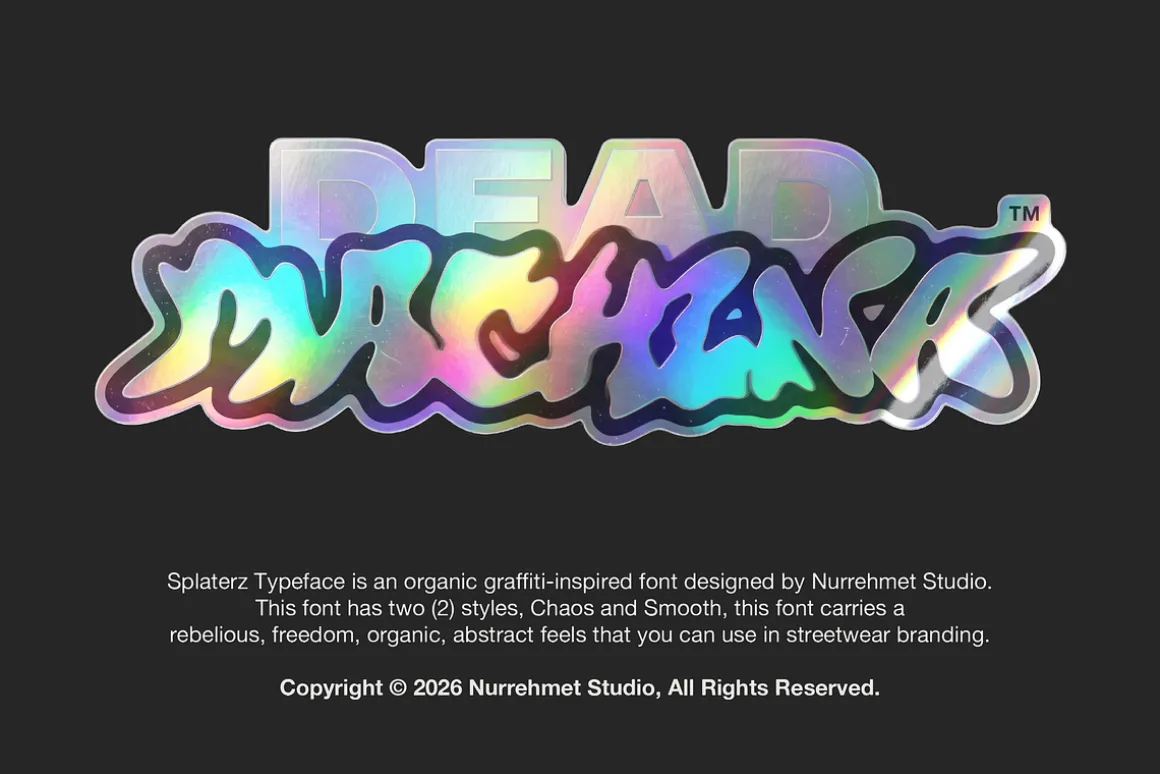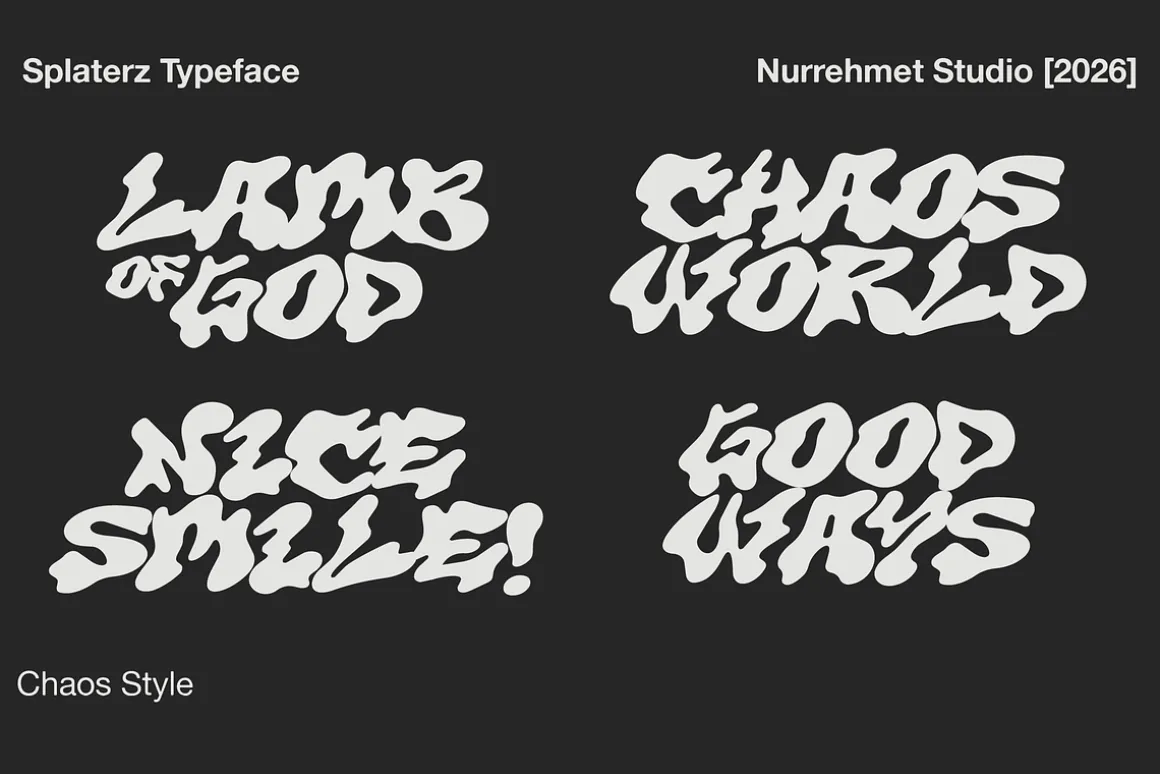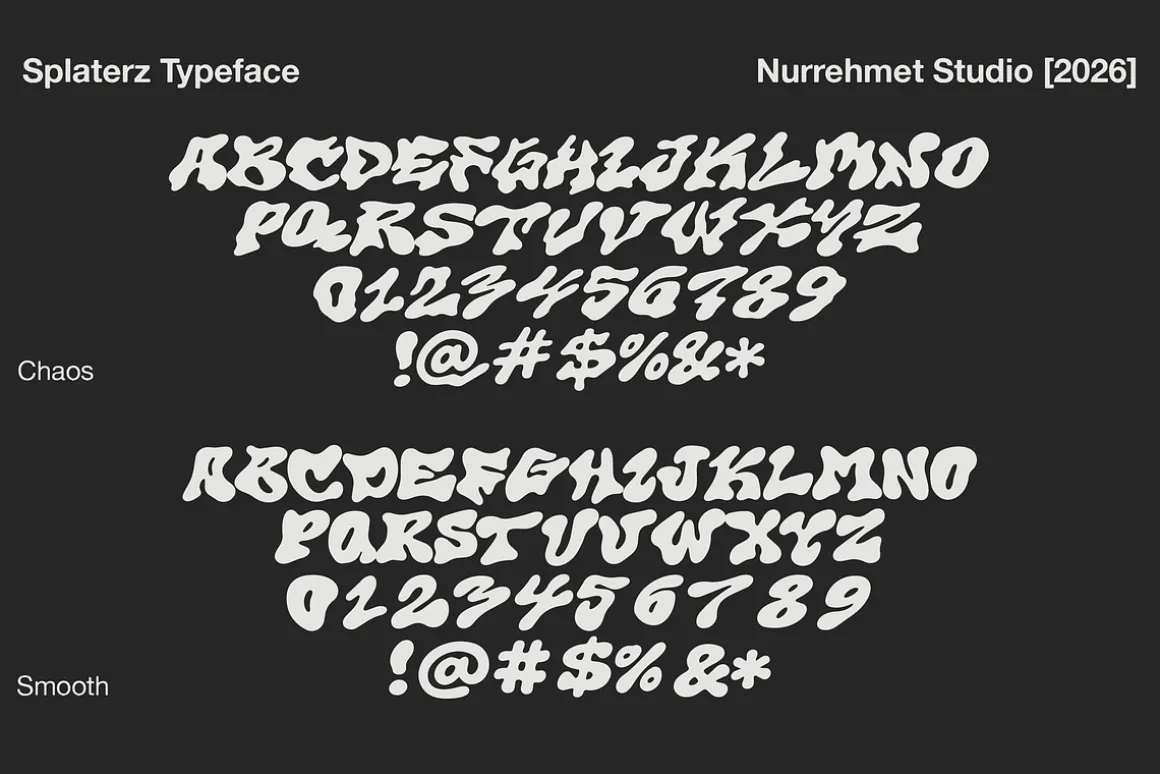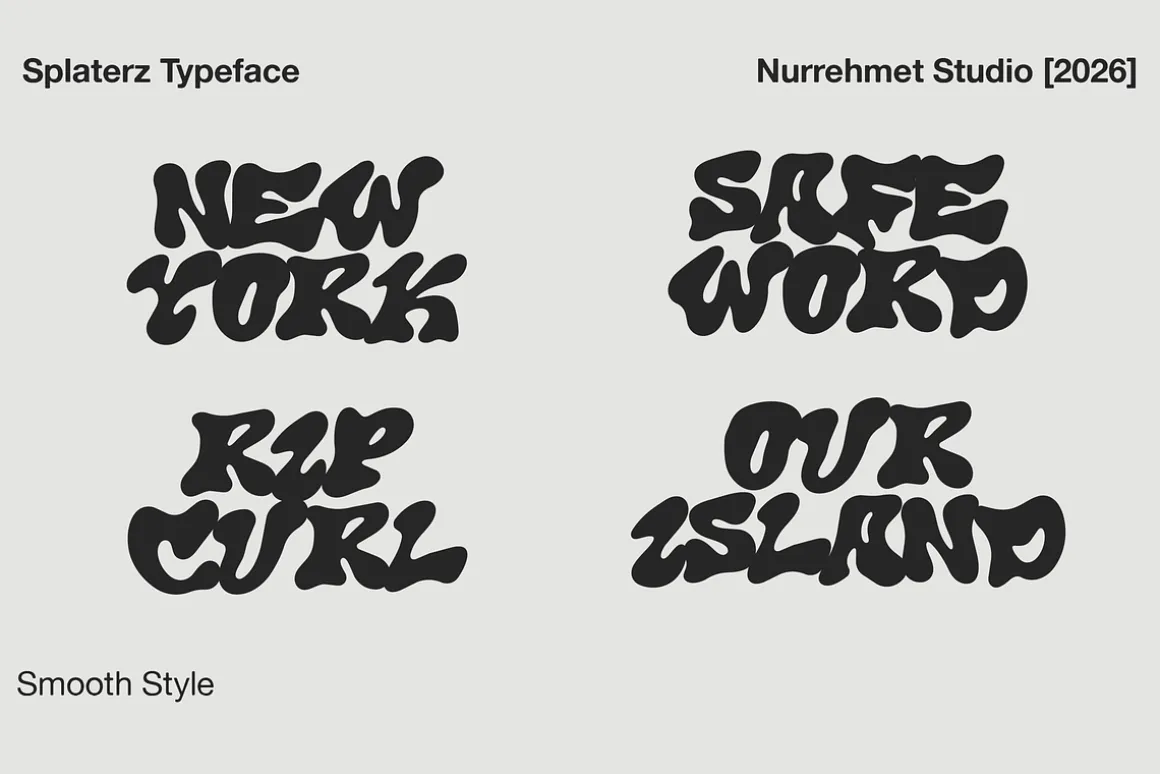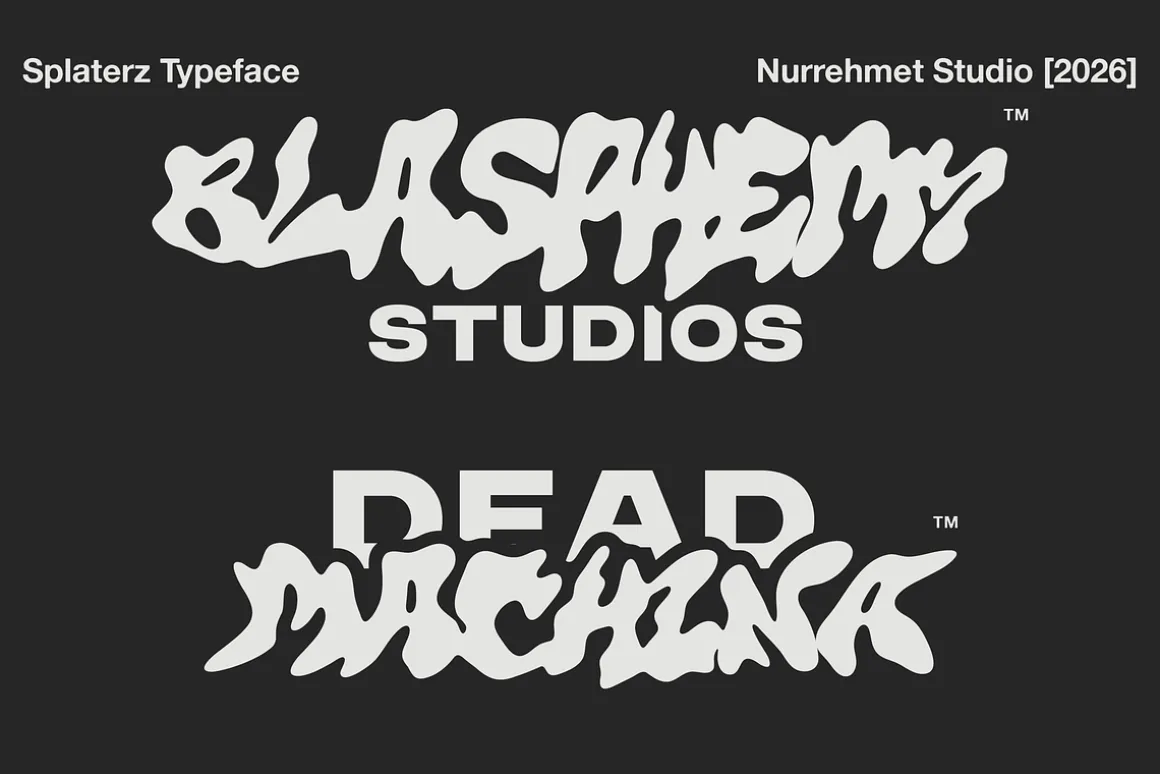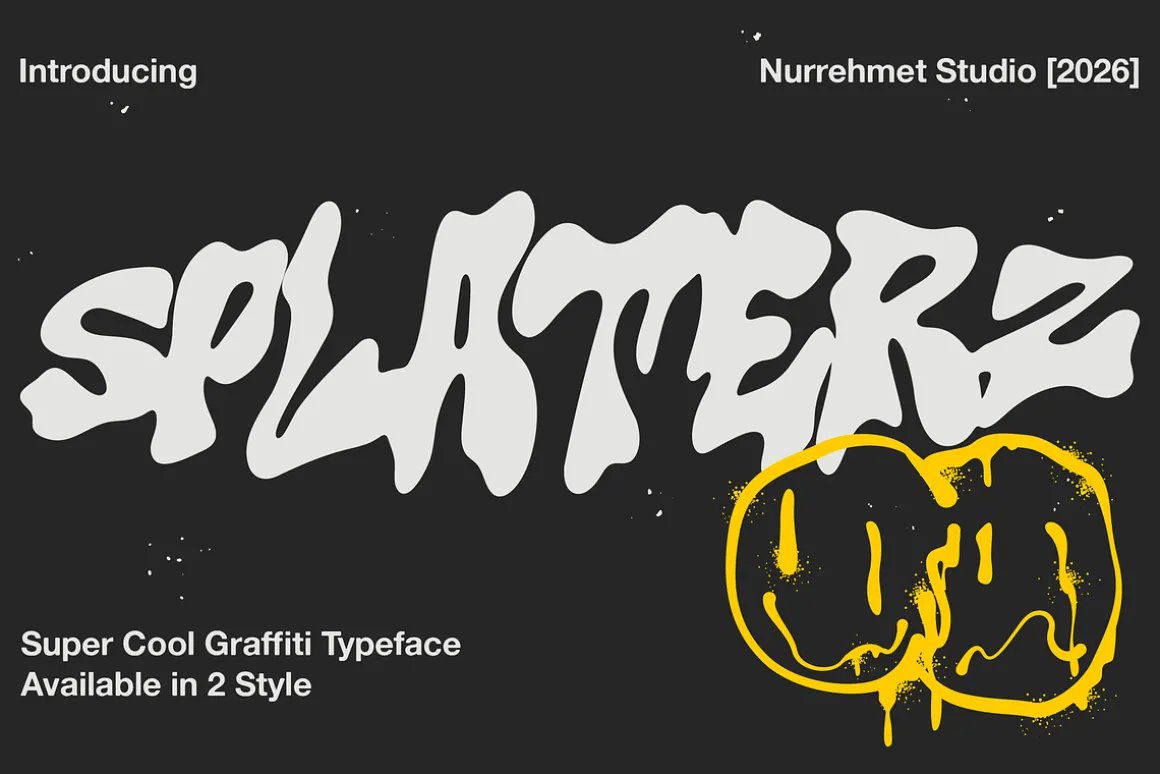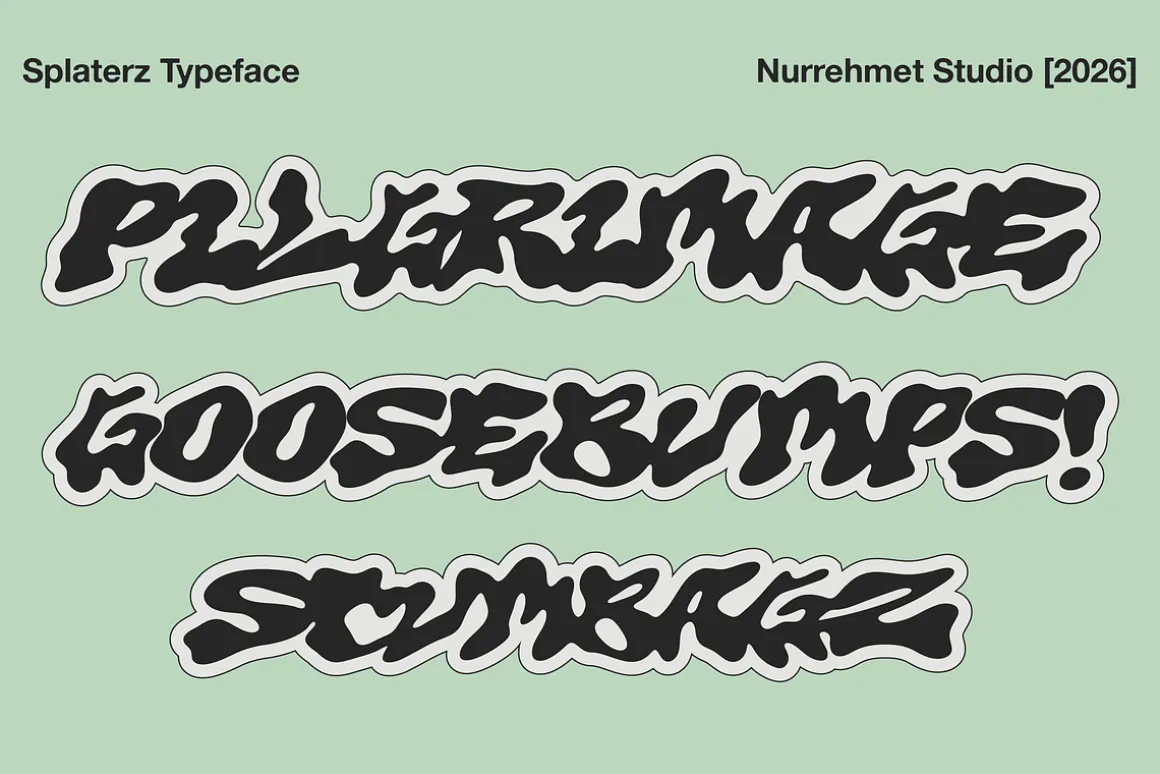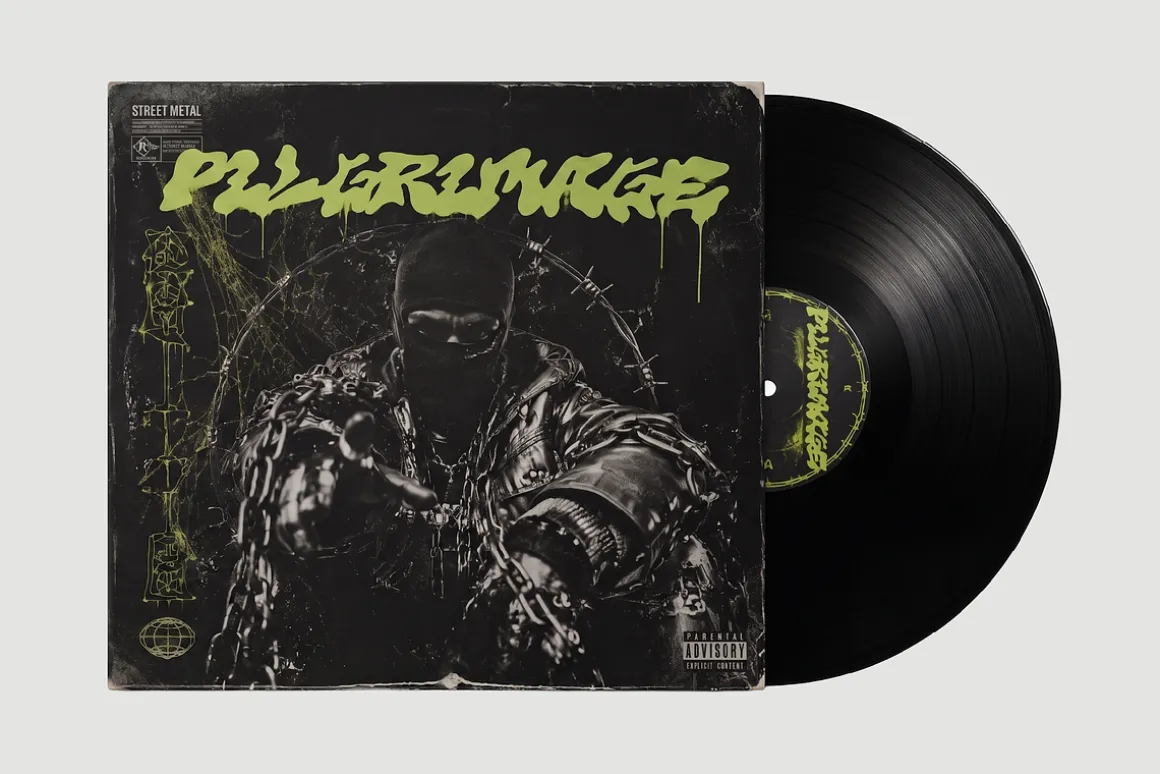
Splaterz Typeface is a bold graffiti font inspired by raw street tags, paint drips, and underground urban culture. It was made to feel loud, rebellious, and full of attitude, like fresh spray paint on a concrete wall. The font comes in two styles so you can switch between clean and chaotic depending on the vibe of your project.
Splaterz SmoothA thick, bubbly throw-up style with cleaner edges and strong readability. Great for streetwear logos, posters, and modern branding with a graffiti touch.
Splaterz ChaosThe same bold structure, but rougher and more aggressive, with messy splatters and dripping details for a raw hand-painted feel.
Perfect For
Streetwear and apparel graphics
Album covers and music branding
Skateboard, punk, and hip-hop designs
Festival posters and club flyers
Sticker packs and merch
Bold packaging and social media graphics